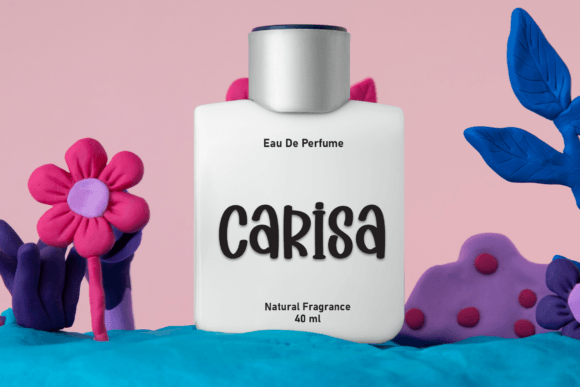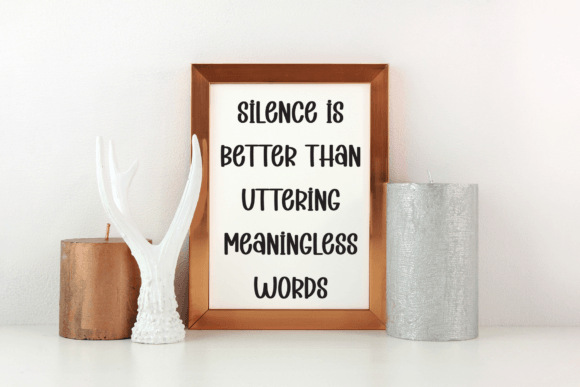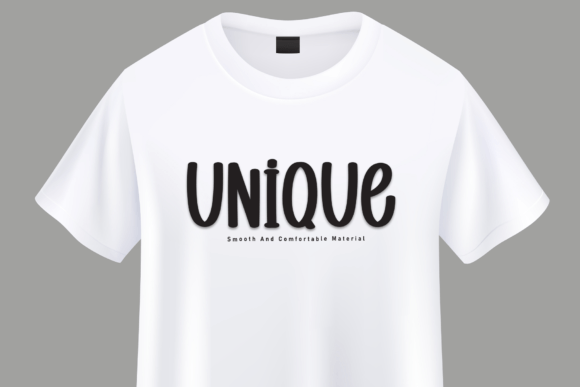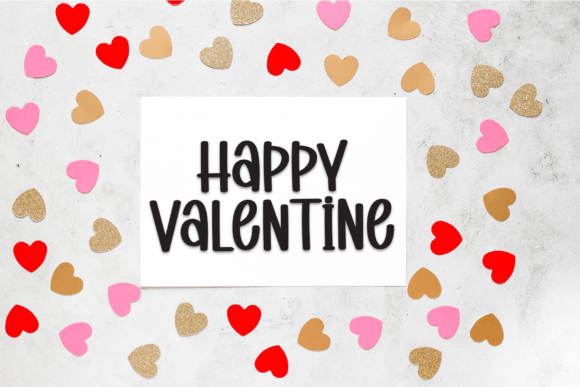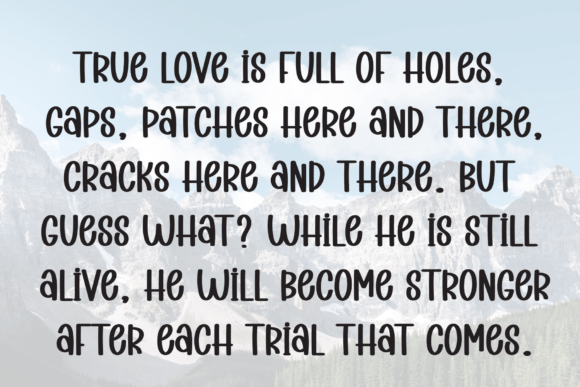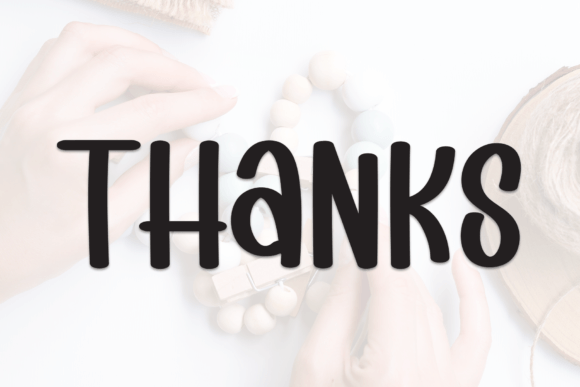
Introducing Creative Handmade Font: The Sweet and Friendly Choice for Designers
Are you tired of using the same old fonts in your designs? Do you want to add a personal touch to your creations? Look no further than Creative Handmade Font, a sweet and friendly handwritten font that’s perfect for designers and crafters alike. With its natural and unique style, Creative Handmade Font is incredibly versatile and can be used in a wide range of designs, from invitations and greeting cards to branding and packaging.
The Charm of Handmade Fonts
Handmade fonts have a certain charm that digital fonts just can’t replicate. They have a personal, human touch that makes them feel more approachable and relatable. Creative Handmade Font is no exception. Its handcrafted style gives it a warm and fuzzy feel that’s perfect for designs that need a little extra personality. Whether you’re creating a logo, a poster, or a social media graphic, Creative Handmade Font is sure to make your design stand out.
What Makes Creative Handmade Font So Special?
So, what sets Creative Handmade Font apart from other fonts? Here are just a few things that make it special:
- Natural and Unique Style: Creative Handmade Font has a natural, handcrafted style that’s unlike any other font out there. Its unique letterforms and subtle imperfections make it feel like it was written by hand.
- Highly Versatile: Whether you’re creating a formal invitation or a playful social media graphic, Creative Handmade Font is incredibly versatile. It can be used in a wide range of designs, from elegant and sophisticated to fun and playful.
- Easy to Read: Despite its handmade style, Creative Handmade Font is incredibly easy to read. Its clear and legible letterforms make it perfect for designs that need to communicate a message.
How to Use Creative Handmade Font in Your Designs
So, how can you use Creative Handmade Font in your designs? Here are a few ideas to get you started:
- Invitations and Greeting Cards: Creative Handmade Font is perfect for invitations, greeting cards, and other paper crafts. Its elegant and sophisticated style makes it ideal for formal events, while its playful and fun style makes it perfect for casual gatherings.
- Branding and Packaging: If you’re looking for a font that will help your brand stand out, Creative Handmade Font is a great choice. Its unique style and natural charm make it perfect for branding and packaging designs.
- Social Media Graphics: Creative Handmade Font is also great for social media graphics, such as Instagram posts and Facebook graphics. Its playful and fun style makes it perfect for creating engaging and shareable content.
Tips for Getting the Most Out of Creative Handmade Font
Here are a few tips for getting the most out of Creative Handmade Font:
- Experiment with Different Sizes and Colors: Creative Handmade Font looks great in a variety of sizes and colors. Experiment with different combinations to find the one that works best for your design.
- Pair it with Other Fonts: Creative Handmade Font pairs well with other fonts, such as sans-serif fonts and script fonts. Experiment with different pairings to find the one that works best for your design.
- Use it to Add a Personal Touch: Creative Handmade Font is perfect for adding a personal touch to your designs. Use it to create a unique and memorable brand identity.
In conclusion, Creative Handmade Font is a sweet and friendly handwritten font that’s perfect for designers and crafters alike. Its natural and unique style makes it incredibly versatile, and its ease of use makes it perfect for a wide range of designs. Whether you’re creating invitations, branding, or social media graphics, Creative Handmade Font is sure to make your design stand out. So why wait? Download Creative Handmade Font today and start creating your own unique and memorable designs!